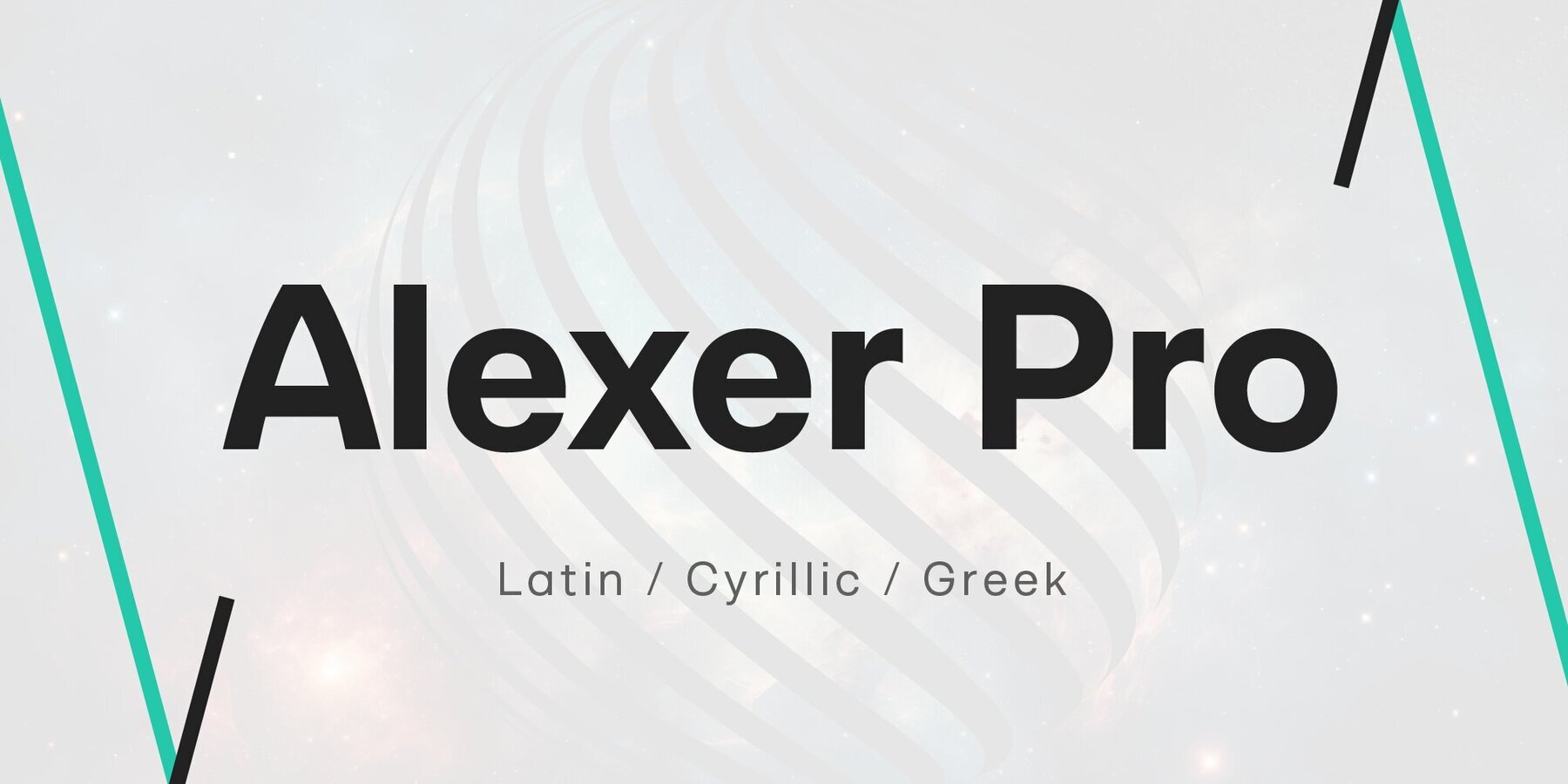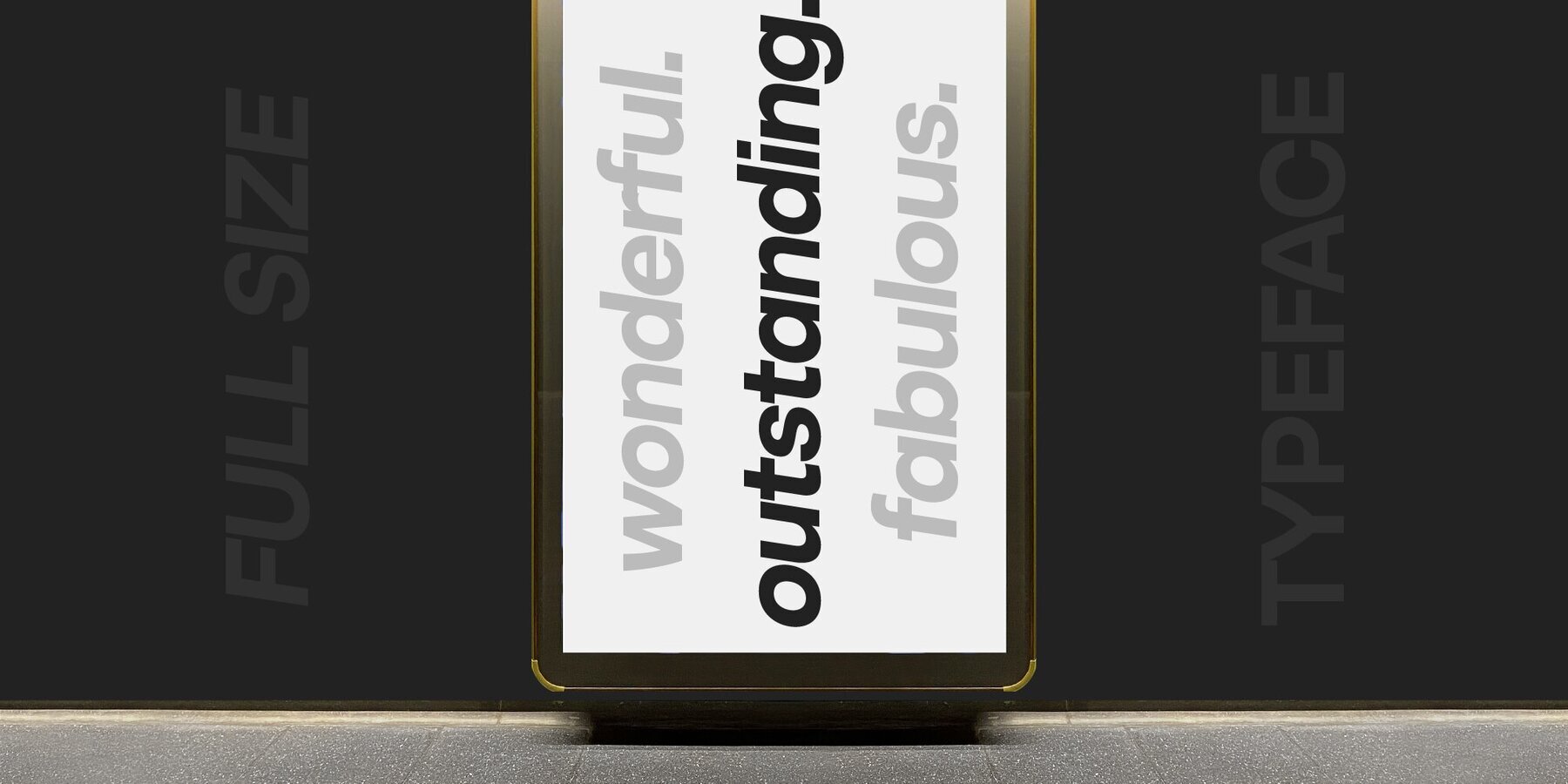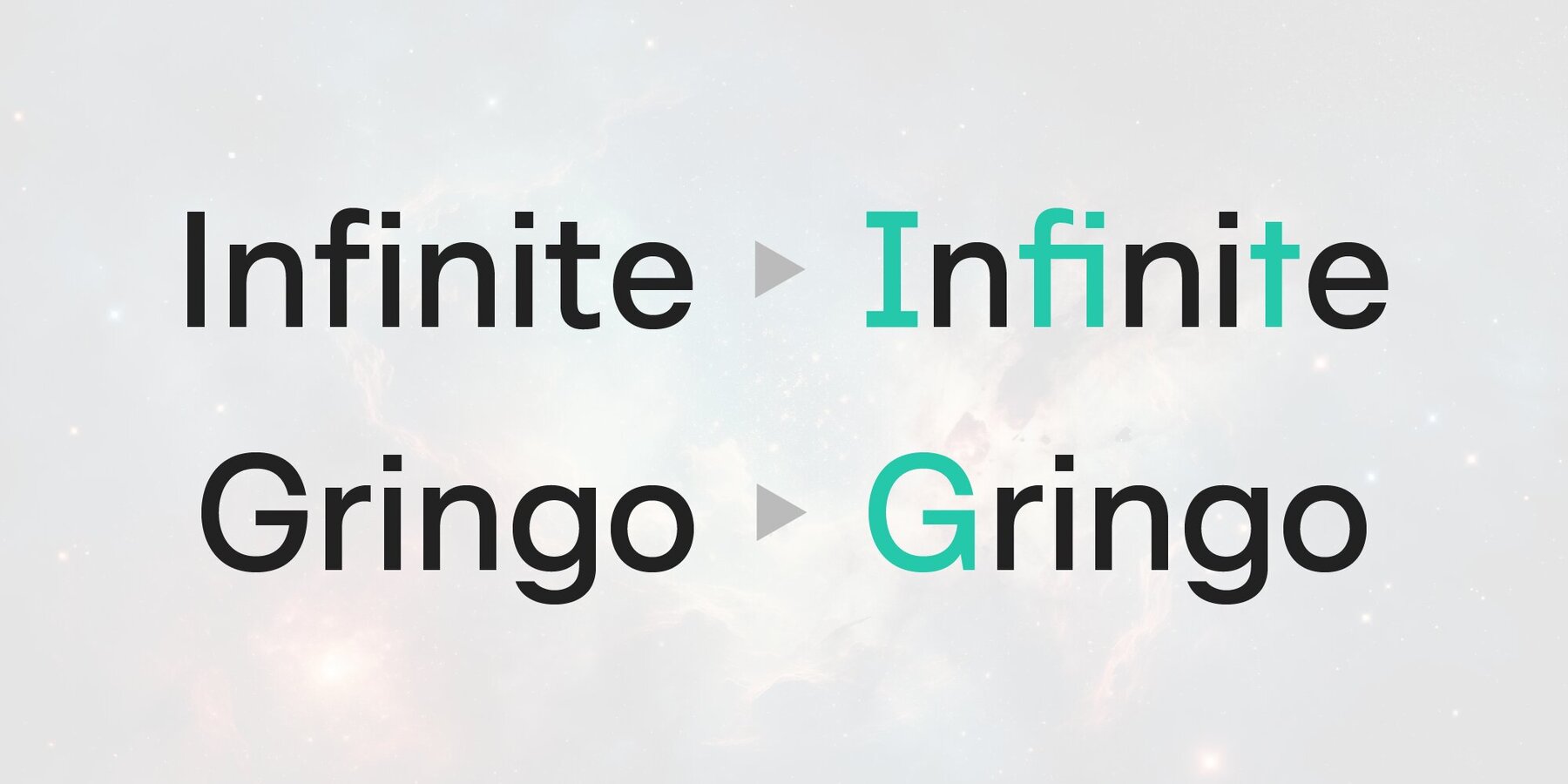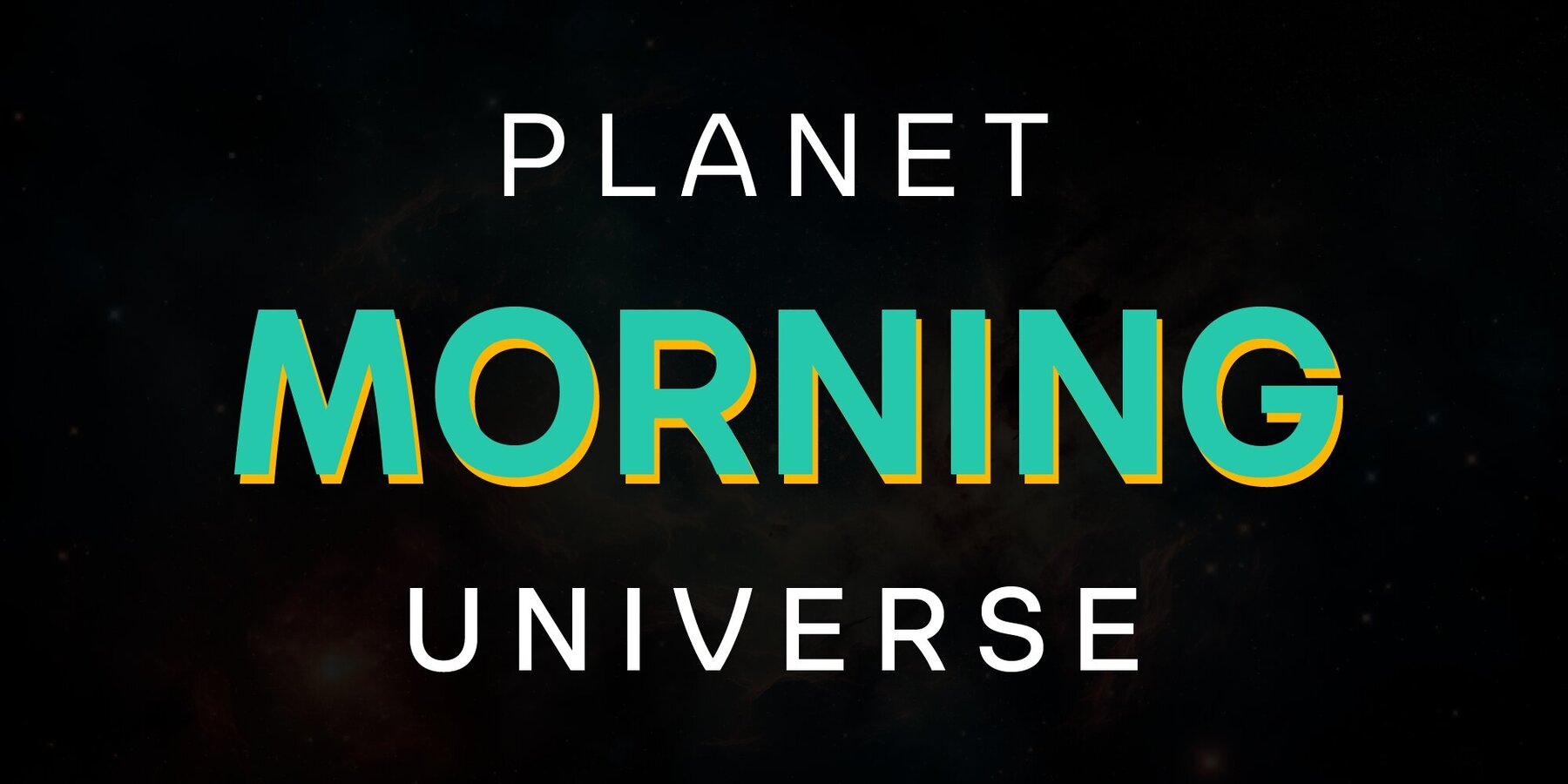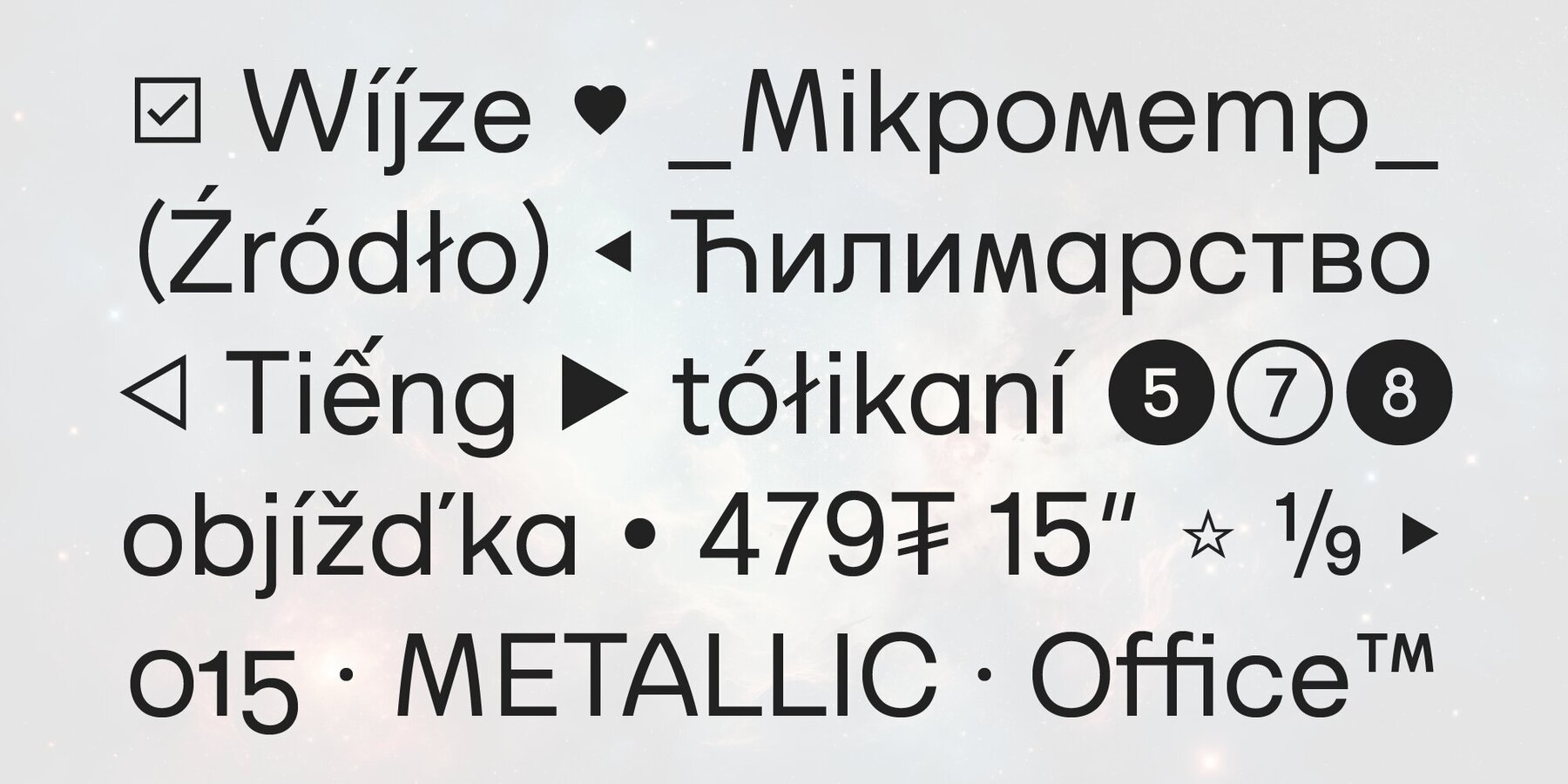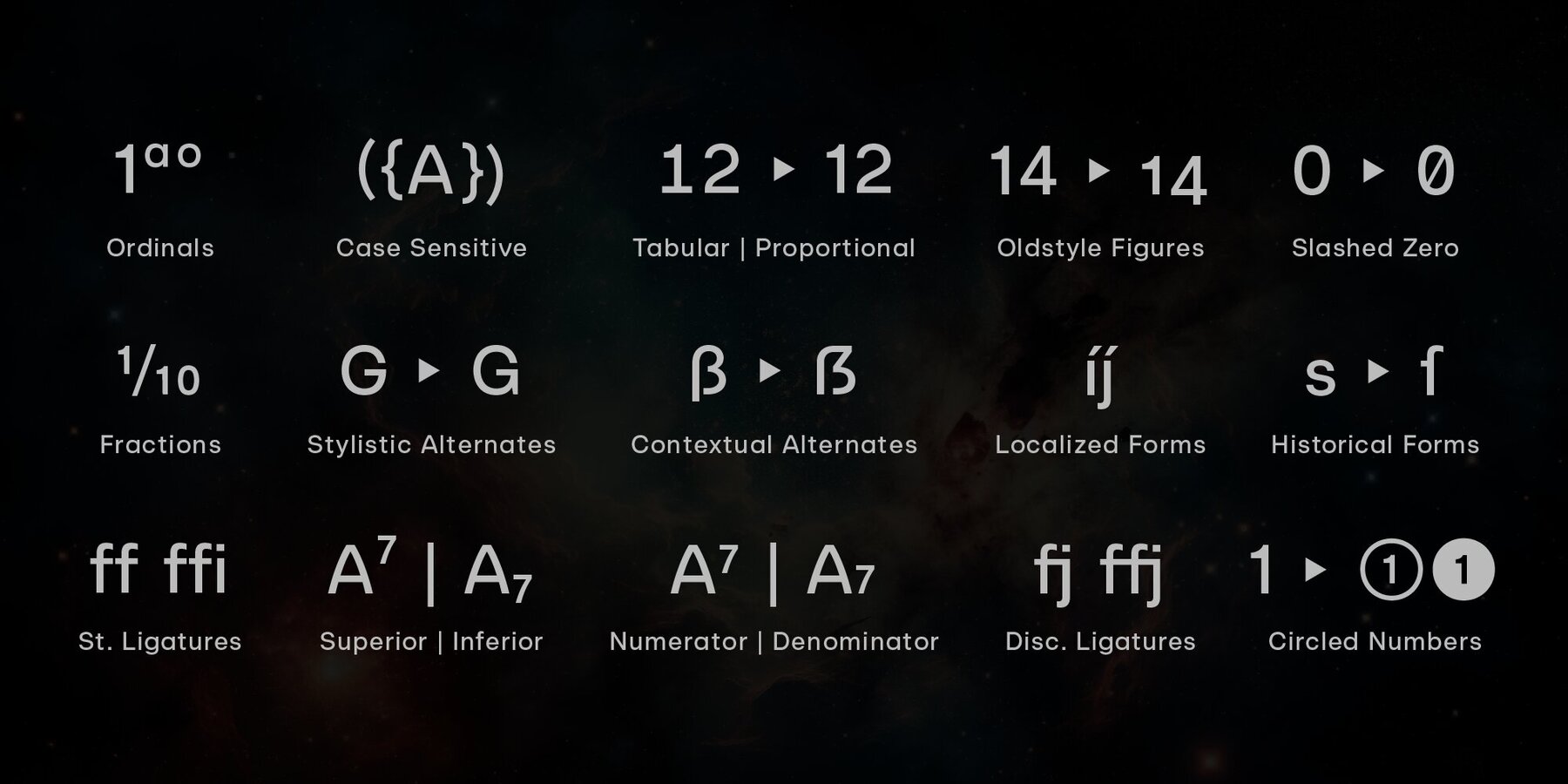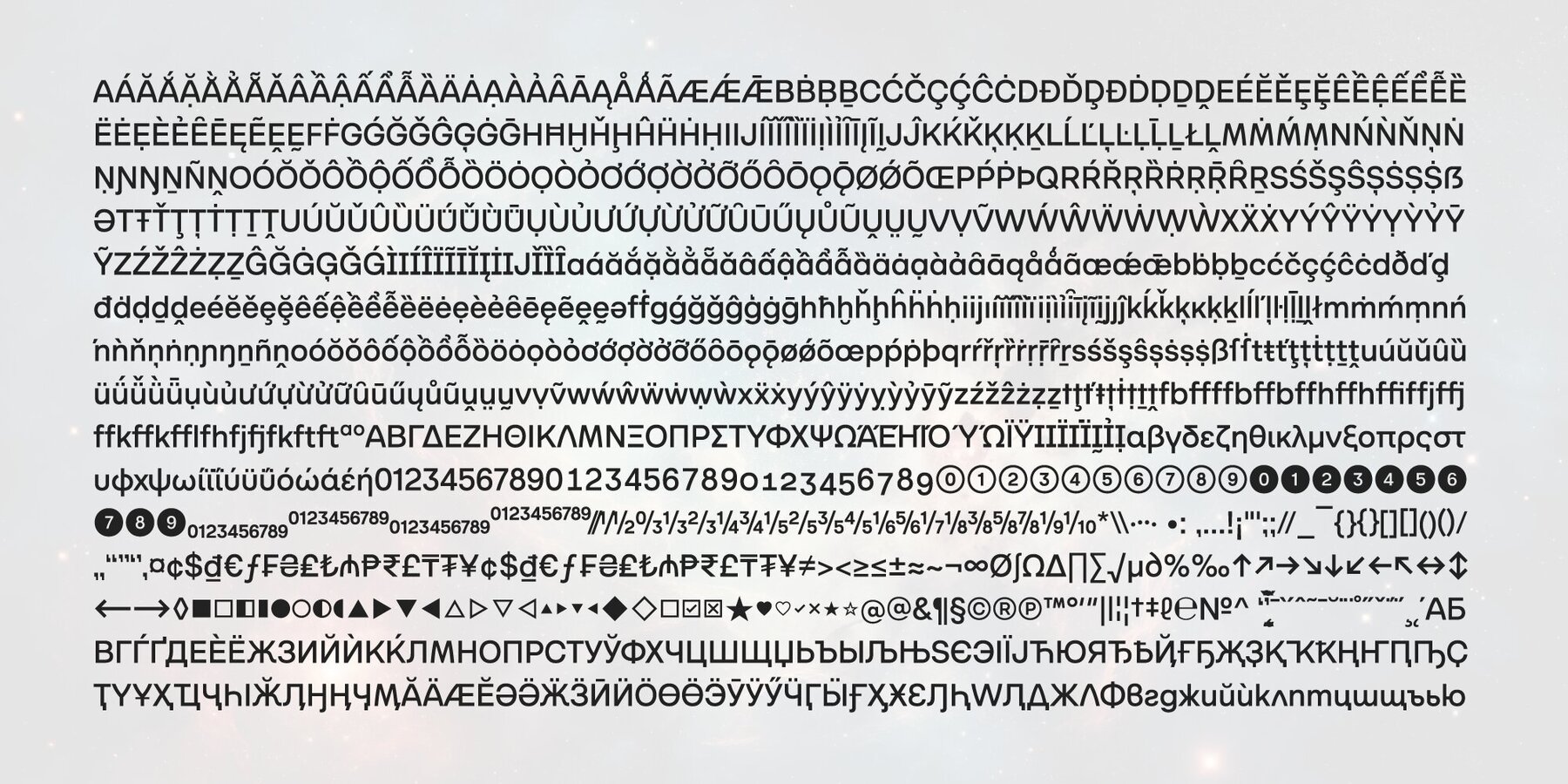
Alexer Pro Font
In the dynamic world of graphic design and marketing, typography serves as a cornerstone, driving creativity and shaping brand identities. Understanding the demand for a unique, yet versatile typeface, NicolassFonts introduces their latest creation: Alexer Pro. Drawing on the traditions of its predecessor, the Alexer font family, Alexer Pro offers a reimagined design language that's inherited the strength of Latin, and the exotic beauty of Cyrillic and Greek. Transcending a robust selection of twelve weights – comprising six uprights, and matching italics – Alexer Pro offers unrivalled design versatility. Each weight is meticulously crafted with over 1300 distinct glyphs along with alternates for letters such as G, I, and t. Augmenting its distinctive features is the comprehensive language support, embracing not only Latin but also Vietnamese, Cyrillic, and Greek. Herein, Alexer Pro proves itself as an all-inclusive font solution, empowering designers and marketing firms to transgress boundaries, language barriers, and achieve design brilliance. Key Features:Alexer Pro: The Quintessential Type Solution for the Modern Graphic Designer
Savchuk Mykola began his career as a graphic designer. Over time, he had a desire to create a font that would reflect his view of typography. ‘They say that all ingenious things are simple, although unique. In my future projects, I want to reflect simplicity on the one hand and uniqueness on the other, providi...